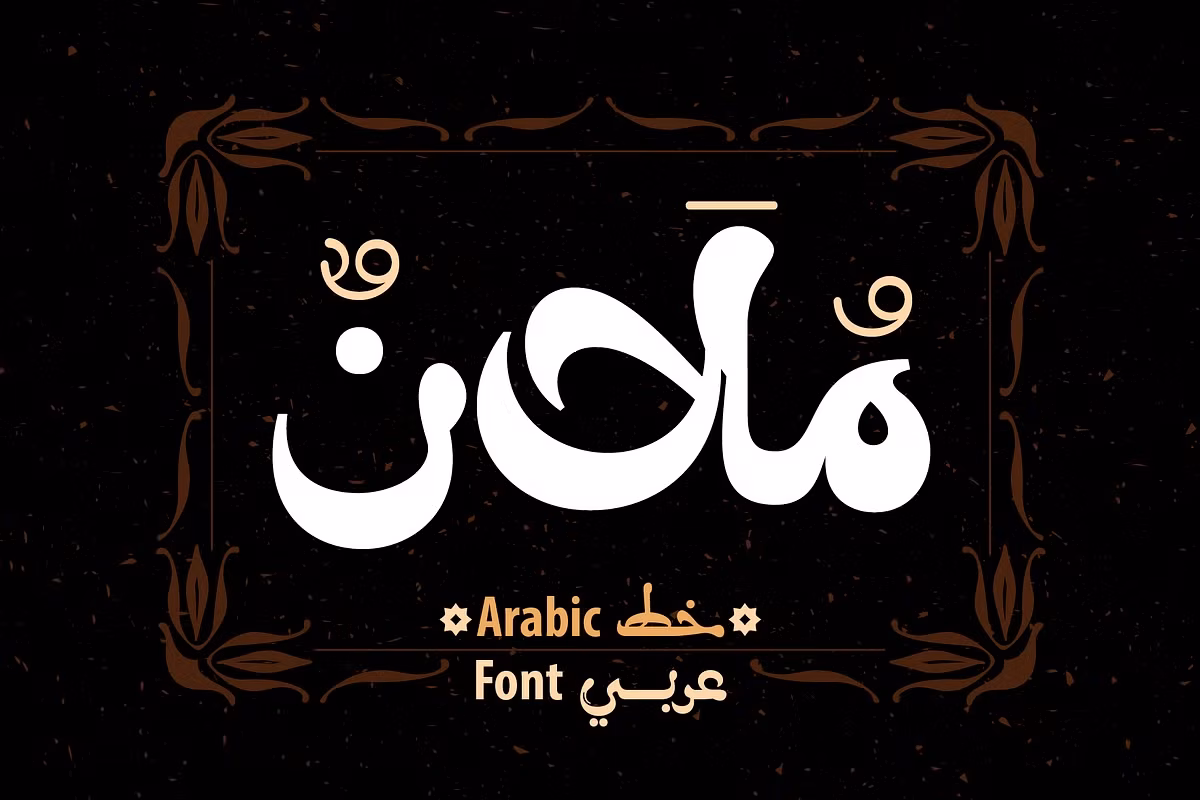
Molan - Arabic Font Free Download
Molan - Arabic Font Free Download is a beautifully crafted Arabic typeface that combines traditional elegance with modern design. Perfect for calligraphy, branding, logos, invitations, and more, Molan offers a unique, sophisticated look that enhances the beauty of your projects. Its clean lines and well-balanced structure make it suitable for both formal and creative applications.